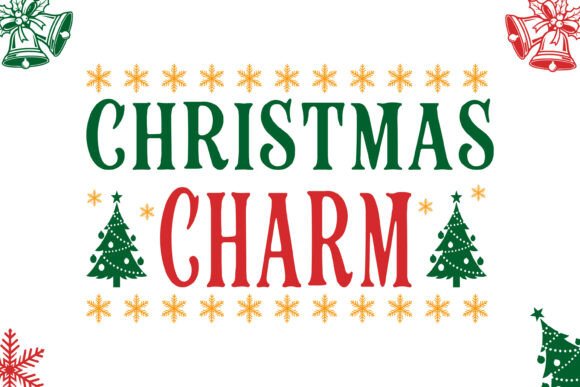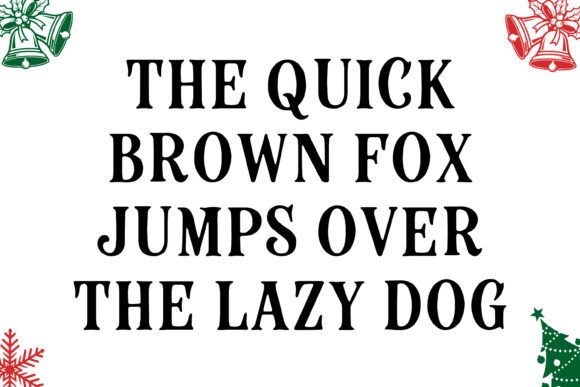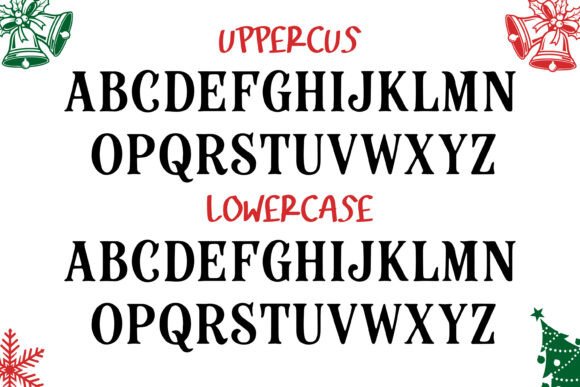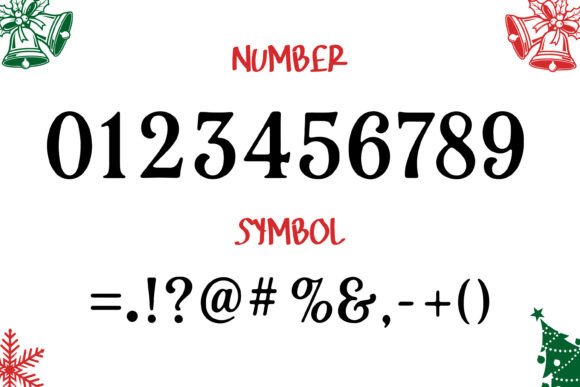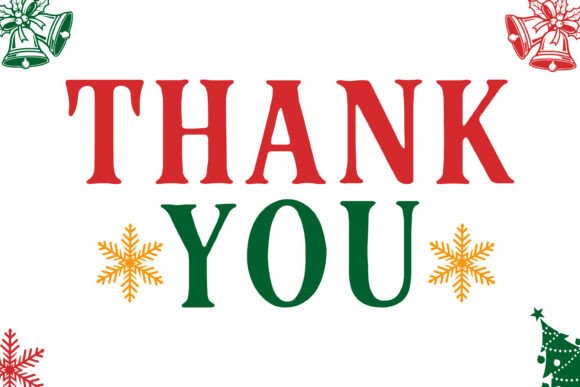
Introducing Christmas Charm Font: Elevate Your Designs with a Dash of Holiday Cheer
Are you looking to add a touch of festive flair to your designs? Look no further than the Christmas Charm Font, a delightful typeface that captures the essence of joy and quirkiness. This enchanting font is perfect for designers and crafters seeking to infuse their creative ventures with a surge of merriment and vibrancy.
The Essence of Christmas Charm Font
Christmas Charm Font is a carefully crafted typeface that embodies the spirit of the holiday season. Its unique design elements and playful charm make it an ideal choice for a wide range of creative projects. Whether you’re working on branding, packaging designs, logos, or headlines, this font is sure to add a dash of charisma and whimsy to your work.
As a designer or crafter, you’re constantly on the lookout for fresh and exciting ways to bring your ideas to life. Christmas Charm Font offers a unique and captivating way to add a touch of holiday magic to your designs. Its versatility makes it suitable for a variety of projects, including:
- Branding: Establish a festive and recognizable identity for your business with Christmas Charm Font.
- Packaging Designs: Create eye-catching and Instagram-worthy packaging that stands out on store shelves.
- Logos: Develop a memorable and engaging logo that captures the essence of your brand.
- Headlines: Craft compelling and attention-grabbing headlines that draw your audience in.
- Wedding Invitations: Add a touch of romance and whimsy to your wedding invitations and stationery.
What Sets Christmas Charm Font Apart
So, what makes Christmas Charm Font so special? Here are just a few reasons why this font stands out from the crowd:
- Unique Design: Christmas Charm Font boasts a one-of-a-kind design that’s sure to capture attention.
- Playful Charm: This font’s playful and whimsical nature makes it perfect for projects that require a touch of personality.
- Versatility: Use Christmas Charm Font across a range of projects, from digital designs to print materials.
Transform Your Designs with Christmas Charm Font
Ready to take your designs to the next level? Christmas Charm Font offers a robust wave of transformation that will elevate your creative ventures and leave a lasting impression on your audience. By incorporating this enchanting font into your workflow, you’ll be able to:
- Stand Out: Differentiate your designs from the competition with a unique and captivating font.
- Convey Emotion: Use Christmas Charm Font to evoke feelings of joy, wonder, and excitement in your audience.
- Enhance Brand Identity: Develop a consistent and recognizable brand voice with Christmas Charm Font.
Get Ready to Experience the Magic of Christmas Charm Font
In conclusion, Christmas Charm Font is a game-changing typeface that’s sure to bring a touch of holiday cheer to your designs. With its unique design, playful charm, and versatility, this font is perfect for designers and crafters seeking to elevate their creative ventures. So why wait? Experience the merriment and vibrancy of Christmas Charm Font today and discover a world of limitless creative possibilities.